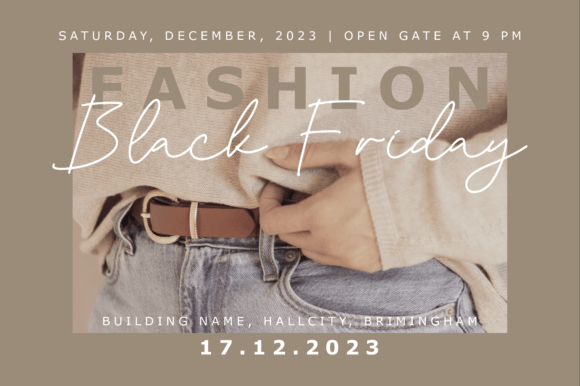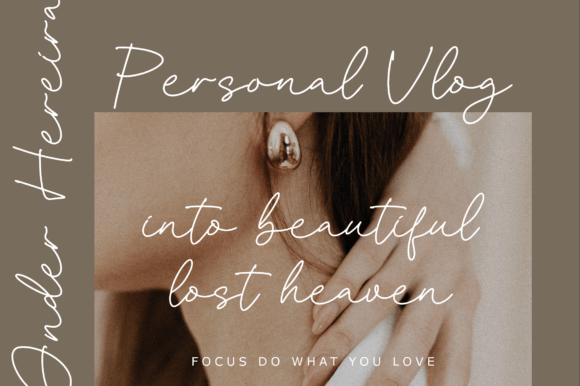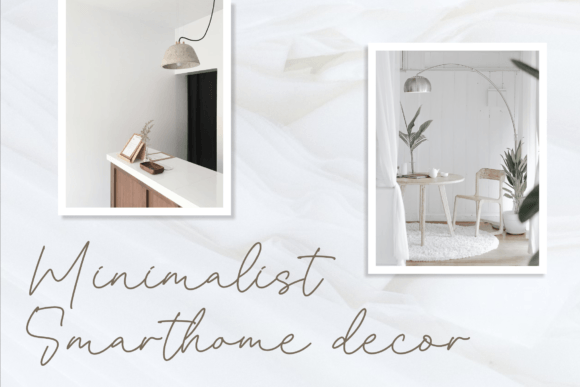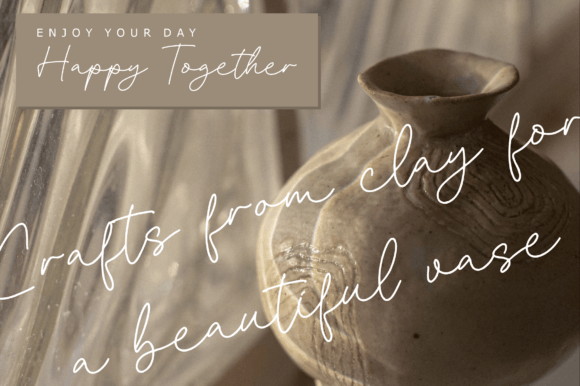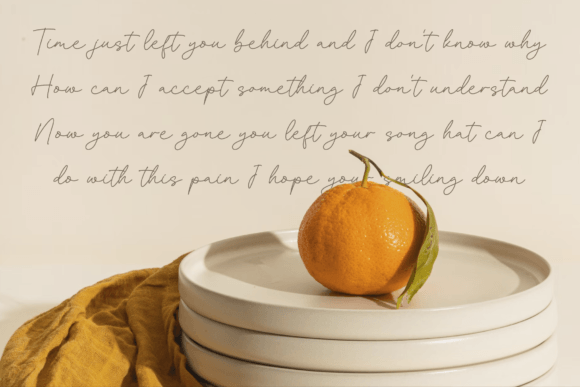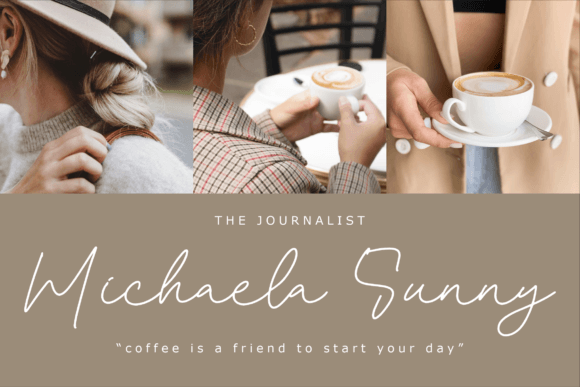
The Abandone Musstare Font: A Monoline Signature Masterpiece
Have you ever been in the middle of a design project, and suddenly, you’re stuck on finding the perfect font? I recall a recent experience where a client requested a logo design with a “beautiful script taste.” After hours of searching, I stumbled upon the Abandone Musstare font, and it was love at first sight! 💕 In this article, we’ll dive into the world of Abandone Musstare, exploring its features, uses, and everything in between.
• ✨ Elegant monoline signature style, perfect for adding a touch of sophistication to any project
• ✅ Highly versatile, suitable for logos, branding projects, homeware designs, product packaging, and more
• 💫 Beautifully crafted, with intricate details that make it stand out from other fonts
• 🌈 Extensive language support, ensuring you can use it for projects in various languages
While Abandone Musstare is an amazing font, there are a few things to keep in mind: 🤔
• ⚠️ Limited use of uppercase letters, which might require creative workarounds for certain designs
• ⚠️ Some users might find the font a bit too delicate for certain projects, requiring adjustments to size or color
The Designer Inspiration Behind Abandone Musstare
Abandone Musstare was created with the intention of providing a beautiful, monoline signature font for designers and crafters. The font’s designer aimed to create a piece that would evoke a sense of elegance and sophistication, perfect for a wide range of projects.
Q: What type of projects is Abandone Musstare suitable for?
A: Abandone Musstare is suitable for a wide range of projects, including logos, branding projects, homeware designs, product packaging, mugs, quotes, posters, shopping bags, t-shirts, book covers, name cards, invitation cards, greeting cards, labels, photography, watermark, special events, and more.
Q: Is Abandone Musstare easy to read?
A: Yes, Abandone Musstare is designed to be elegant and legible, making it easy to read in various contexts.